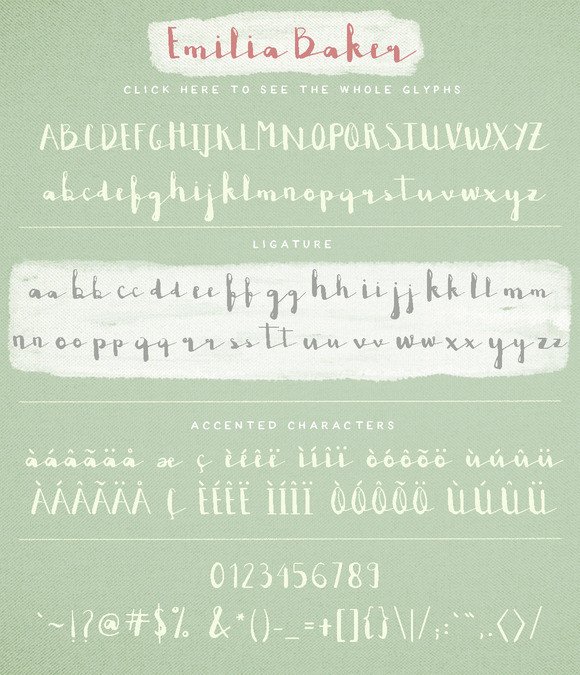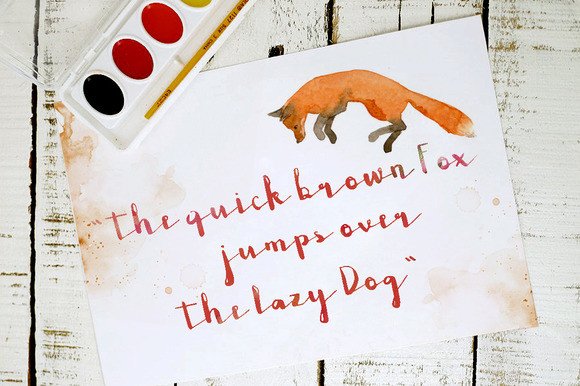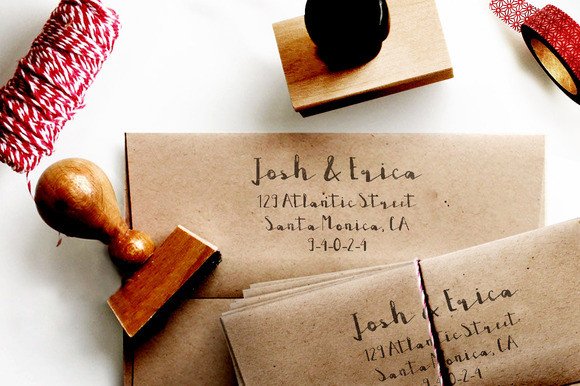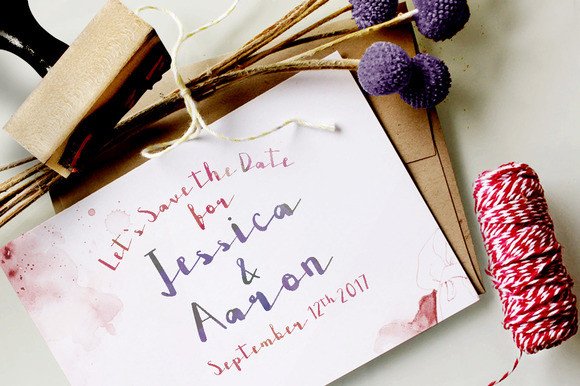
Emilia Baker Font
About Emilia Baker Font
Emilia Baker is a neat, brush typeface.
Created by hand, this font will easily fit all sort of design projects: wedding invitations, cards, return addresses, logos, illustration signatures, posters, branding work and much more.